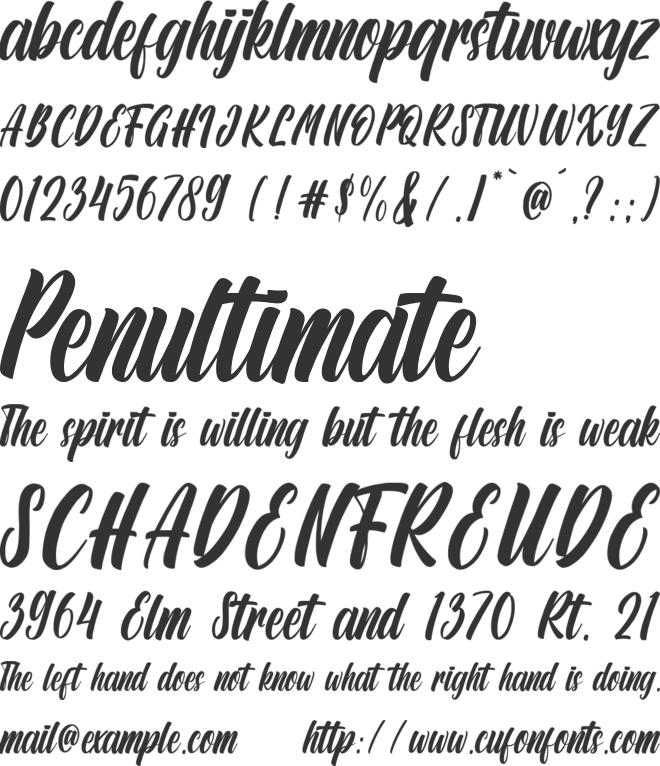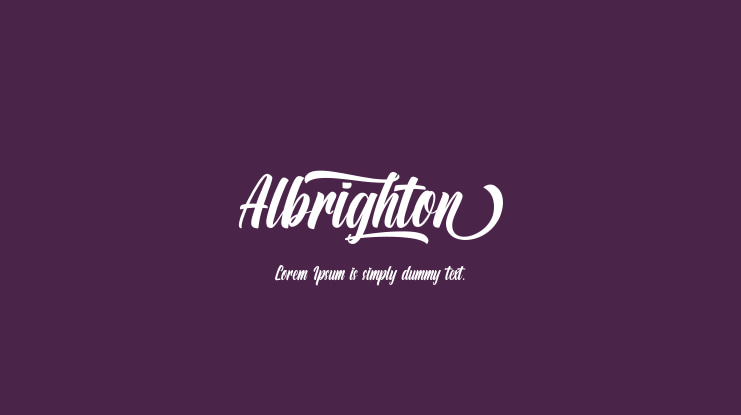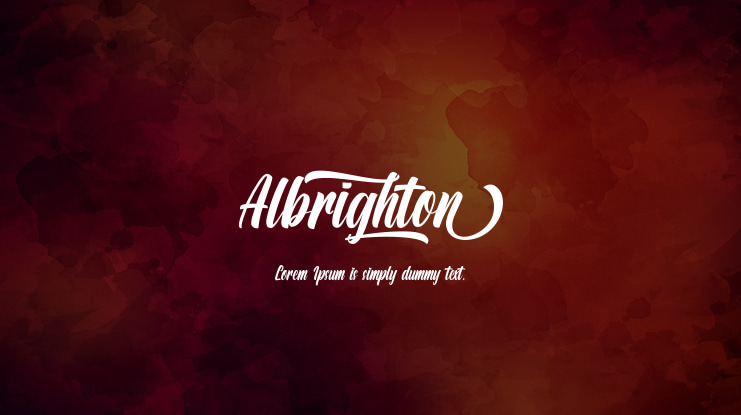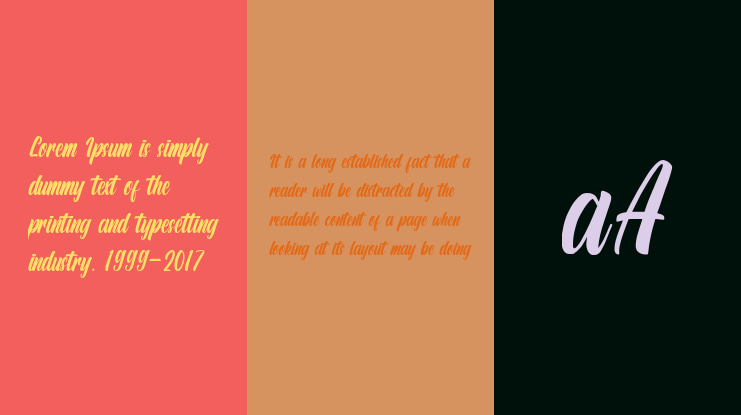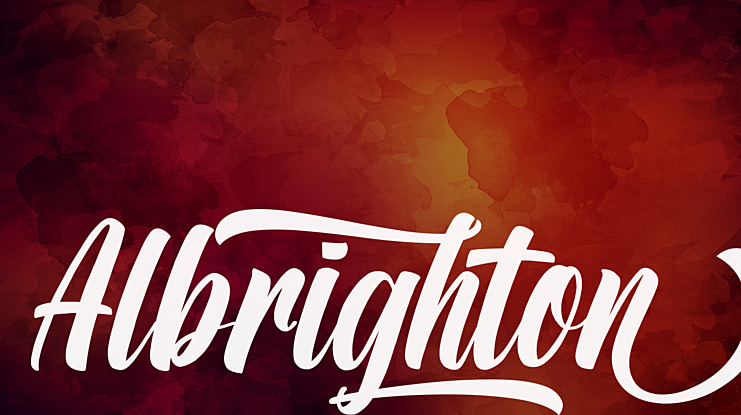
Albrighton Font
Albrighton is an incredibly distinct, delicate and timeless handwritten font.
It looks stunning on wedding invitations, thank you cards, quotes, greeting cards, logos, business cards and every other design which needs a handwritten touch.